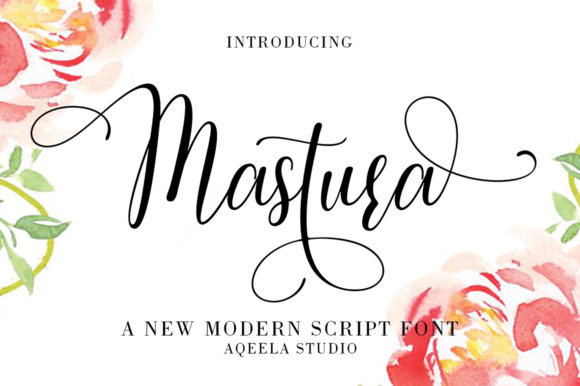
Meet Mastura - A peerless script font family flawlessly weaving charm and elegance into your digital creations. Step into a world where your words dance with sophistication, leaving an indelible impression on all who behold them.
Mastura's alluring persona effortlessly enhances wedding invitations, bestowing upon them an air of timeless romance. Its graceful strokes render thank-you cards with a touch of heartfelt sincerity, making each expression of gratitude truly unforgettable. Transform quotes into captivating works of art, allowing their profound messages to resonate with newfound depth and eloquence. Greeting cards adorned with Mastura's enchanting characters exude warmth and heartfelt sentiments, making every greeting a cherished keepsake.
Unleash your creativity with logos and business cards that radiate professionalism and uniqueness. Mastura's versatile nature complements a myriad of designs, adding a dash of sophistication and elegance to each project it graces. Its handwritten touch lends a personal touch, evoking a sense of authenticity and genuine connection with your audience.
Experience the limitless possibilities of Mastura, a font family that transcends boundaries and elevates your designs to new heights. Its PUA encoding ensures effortless access to a treasure trove of glyphs and swashes, empowering you to infuse your projects with intricate details and captivating flourishes.
Indulge in the beauty and versatility of Mastura, a font family that ignites your imagination and sets your creativity ablaze. Elevate your designs, captivate your audience, and leave a lasting impression that speaks volumes about your impeccable taste and discerning eye for aesthetics.